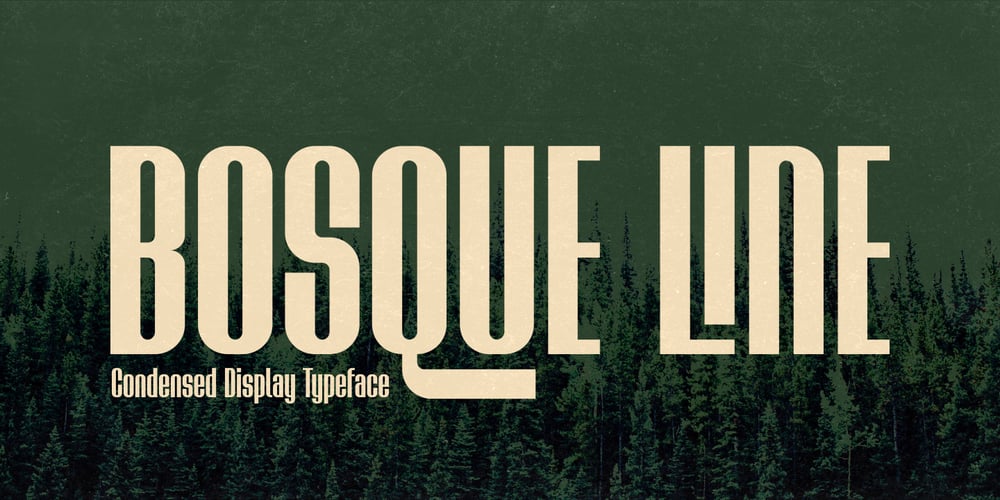
Bosque Line Font Family was designed by Bayu Noor Witarsa and published by Asenbayu. Bosque Line contains 1 styles and family package options. Bosque Line is a condensed display font that has an attractive appearance that brings you to a modern urban feel. Inspired by the long exposure of tree trunks in forest, Bosque line letters are designed with tall and clean shapes. Alternate and ligature features are available to make your work more attractive. It’s perfect for your projects such as: posters, logos, book covers, social media posts and many more. Thank you!